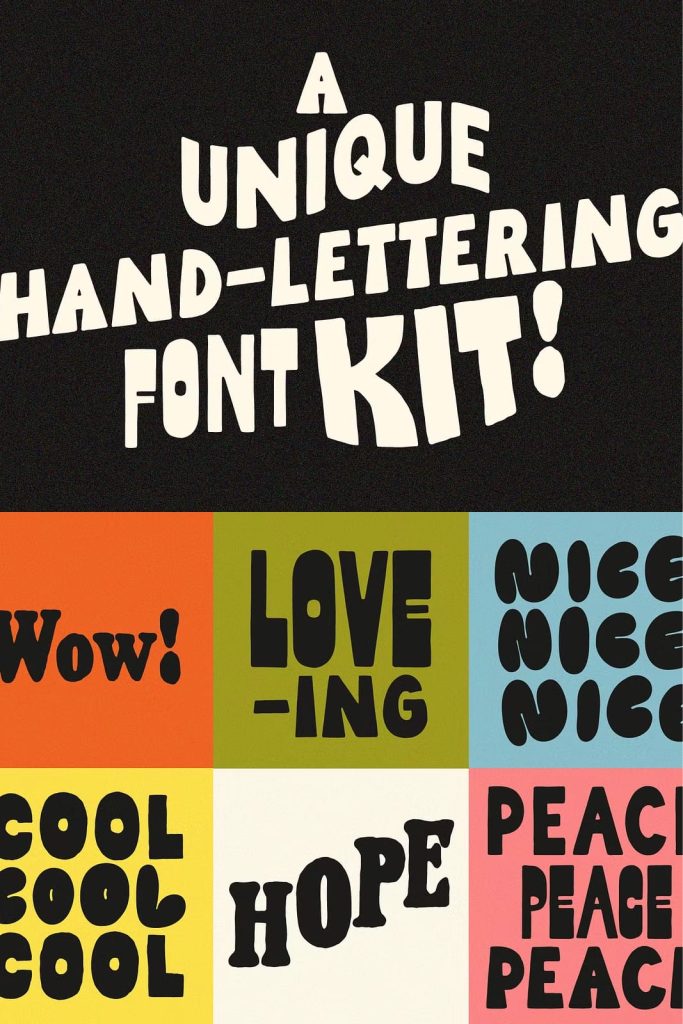
Hand-lettering Kit: Unique Handmade Fonts for Authentic Creative Designs
The Hand-lettering Kit handmade fonts introduces a vibrant and expressive collection of hand-drawn typefaces designed to bring personality and originality into every project. Created with genuine craftsmanship, each font in the kit captures the natural charm of hand-lettered artistry. This collection offers designers a diverse range of handmade styles, allowing you to produce warm, engaging, and visually rich designs that stand apart from digitally manufactured typography.
A Diverse Collection of Handcrafted Fonts
This Hand-lettering Kit was developed to empower designers who value organic expression and creative freedom. Every font in the collection is meticulously hand-drawn, preserving the character, rhythm, and movement of traditional lettering. Instead of flawless perfection, the typefaces embrace handmade imperfections that add depth and authenticity. These natural variations allow you to create work that feels alive, personal, and emotionally engaging. Whether you need bold lettering, playful script, or rustic decorative type, this kit gives you an array of tools to explore.
Authentic Imperfections That Add Creative Charm
One of the most captivating aspects of the Hand-lettering Kit is its commitment to authenticity. Each stroke reflects the original hand-drawn texture, capturing the subtle irregularities that make lettering memorable. These imperfections are not flaws—they are artistic features that create visual warmth and dynamic energy. They give your designs a handcrafted presence that digital fonts often lack. By incorporating these genuine textures, you can craft layouts that feel more intimate and expressive.
Perfect for Unique, Personal, and Artistic Design Projects
Designers who want to create work with personality will find the Hand-lettering Kit incredibly valuable. The handmade fonts excel in projects that require an inviting, creative, or artistic tone. From branding and packaging to posters, wedding stationery, digital content, and lifestyle products, the collection adapts effortlessly to a wide variety of design needs. The fonts deliver visual storytelling that resonates on a deeper level, making your work both professional and emotionally compelling.
Ideal for Posters, Logos, Social Media Graphics, and More
Because each font is crafted with individuality, the kit becomes a powerful tool for designers seeking to establish distinctive visual identities. Posters gain a dynamic, handcrafted look that stands out in crowded environments. Logos become more memorable through expressive lettering that conveys emotion and personality. Social media graphics benefit from the inviting nature of the fonts, helping you build content that feels genuine and engaging. Whether you are designing quotes, merchandise, invitations, or visual branding systems, the Hand-lettering Kit offers the creative versatility needed to bring your vision to life.
A Creative Toolkit for Designers Who Love Artistic Expression
This kit is more than a collection of fonts—it is a creative resource for designers who thrive on artistic expression. Each typeface invites experimentation, allowing you to blend different styles, structures, and textures to build dynamic layouts. The handmade nature of the fonts supports storytelling, originality, and emotional connection. Whether you aim for playful, rustic, bold, or elegant, the Hand-lettering Kit helps you achieve those moods with clarity and artistic strength.
If you want to elevate your design projects with fonts that feel handmade, expressive, and full of character, the Hand-lettering Kit offers everything you need. With its diverse selection of hand-drawn typefaces and its charming imperfections, this collection empowers you to create authentic, eye-catching designs that leave a lasting impression.